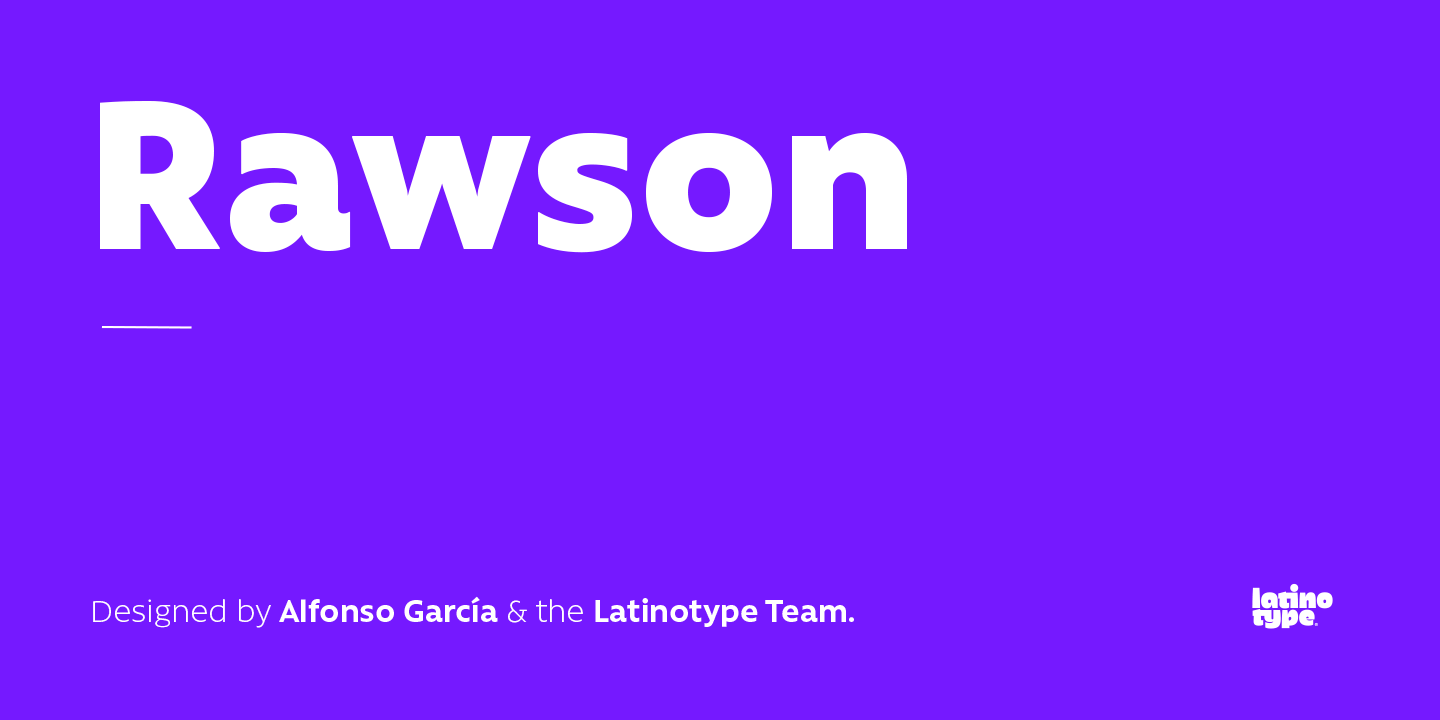
The Rawson Font is a bold, impactful, and often industrial-inspired typeface, designed for designs that demand strong visual presence and clear communication. Its robust forms, typically sans-serif with a slightly geometric or even brutalist edge, make it an excellent choice for heavy-duty branding, sports team logos, automotive advertising, construction company signage, gaming titles, and urban-themed marketing materials. Whether you’re crafting a powerful slogan or designing a resilient brand identity, this font will imbue your project with a sense of strength and unwavering confidence.
What makes the Rawson Font so exciting is its undeniable authority and its ability to deliver a message with absolute clarity. It's perfect for designers who want to convey durability, efficiency, or a no-nonsense, modern aesthetic. This font stands out by offering a solid, unpretentious appearance that makes any text it graces feel monumental and significant. Its strong structure and often condensed proportions ensure high legibility even in challenging environments, making it ideal for headlines and prominent display text. The distinct character of the Rawson Font ensures your design will leave a lasting and memorable impression.
The Rawson Font typically offers a comprehensive family to support diverse design needs. While specific variations may depend on the font package, you can generally expect to find a range of weights such as Light, Regular, Medium, Bold, and Black, providing extensive options for hierarchy and emphasis. Many versions of the Rawson Font Free Download also include corresponding Italic or Oblique styles for each weight, adding dynamic flexibility for emphasis and stylistic variation. Additionally, some premium packages might offer Condensed or Extended widths, various figure styles (e.g., lining, tabular), and potentially even alternate characters for specific glyphs, allowing for more nuanced and custom typographic solutions. This extensive family ensures that the Rawson Font can be adapted to almost any design requirement, maintaining a consistent, powerful, and highly functional aesthetic throughout your project.